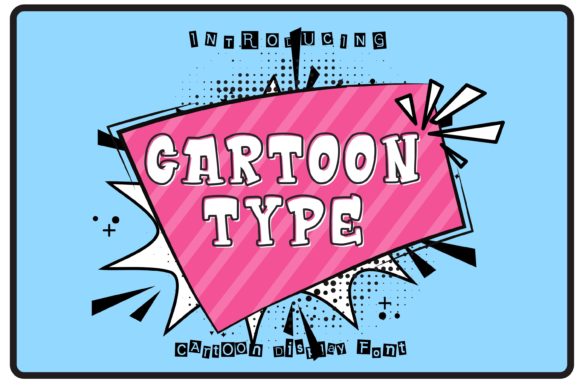
Introducing Cartoon Type Font: Add a Playful Touch to Your Designs
Are you looking for a font that can add a dash of fun and playfulness to your designs? Look no further than Cartoon Type Font! This cool and fun styled display font is perfect for kid artworks, decorations classrooms, or sticker designs. Its friendly and easy-to-read style makes it an excellent choice for designers and crafters who want to create engaging and visually appealing content.
What is Cartoon Type Font?
Cartoon Type Font is a unique and creative font that is designed to bring a smile to your face. Its bold and colorful style is reminiscent of classic cartoons, making it perfect for designs that require a playful touch. Whether you’re creating artwork for kids, designing stickers, or decorating a classroom, Cartoon Type Font is sure to make your content stand out.
Key Features of Cartoon Type Font
• Cool and Fun Style: Cartoon Type Font has a unique and playful style that is sure to capture the attention of your audience.
• Easily Readable: Despite its bold and playful style, Cartoon Type Font is easy to read, making it perfect for designs that require a clear and concise message.
• Perfect for Kid Artworks: Cartoon Type Font is designed with kids in mind, making it perfect for artworks, stickers, and other designs that require a fun and playful touch.
• Flexible and Versatile: Cartoon Type Font can be used for a wide range of designs, from classroom decorations to sticker designs, and everything in between.
Benefits of Using Cartoon Type Font
Using Cartoon Type Font in your designs can have a range of benefits, including:
• Increased Engagement: The playful and fun style of Cartoon Type Font is sure to capture the attention of your audience and keep them engaged.
• Improved Readability: Cartoon Type Font is easy to read, making it perfect for designs that require a clear and concise message.
• Enhanced Creativity: Cartoon Type Font can add a dash of creativity and imagination to your designs, making them stand out from the crowd.
How to Use Cartoon Type Font
Using Cartoon Type Font is easy! Here are a few tips to get you started:
• Pair it with Other Fonts: Cartoon Type Font pairs well with other fonts, making it easy to create visually appealing combinations.
• Use it for Headings: Cartoon Type Font is perfect for headings and titles, making it easy to add a playful touch to your designs.
• Experiment with Colors: Cartoon Type Font looks great in a range of colors, so don’t be afraid to experiment and find the perfect hue for your design.
Cartoon Type Font is a cool and fun styled display font that is perfect for designers and crafters who want to add a playful touch to their designs. Its friendly and easy-to-read style makes it an excellent choice for kid artworks, decorations classrooms, or sticker designs. With its range of benefits, including increased engagement, improved readability, and enhanced creativity, Cartoon Type Font is sure to become a favorite in your design toolkit.